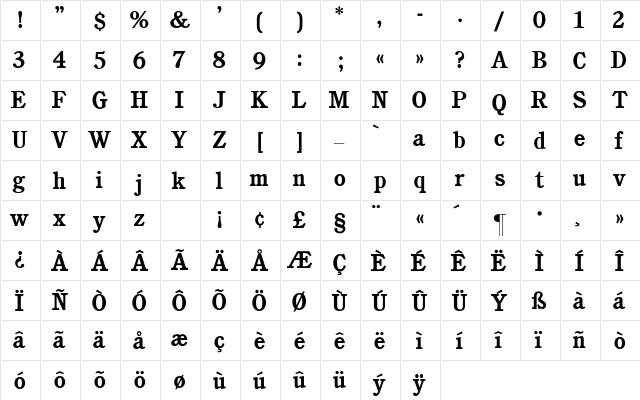
Cushing-Bold Regular Font Preview
Cushing-Bold Regular
Cushing-Bold Regular Font Details
Design Context for Cushing-Bold Typeface
Cushing-Bold is a composed and adaptable typeface that performs quietly and consistently across a wide range of design contexts. Its bold stroke weight gives it real presence on the page.